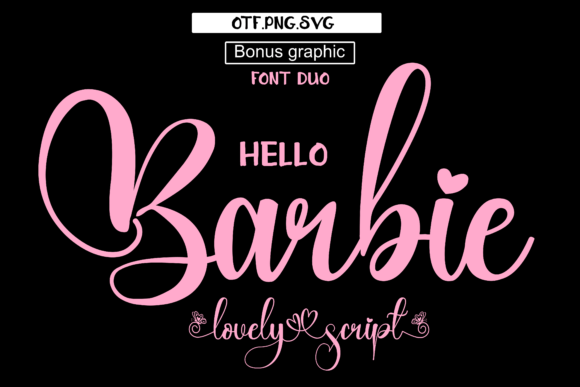
Download Hello Barbie Font for free! Created by Infontree and published by Paul Park, this script font family is perfect for adding a unique touch to your designs.
Hello Barbie is an elegant and flowing handwritten font. It features varied baselines, smooth lines, gorgeous glyphs, and stunning alternatives. It maintains a classy calligraphic influence while feeling contemporary and fresh. Fall in love with this font and take your projects to the highest level!